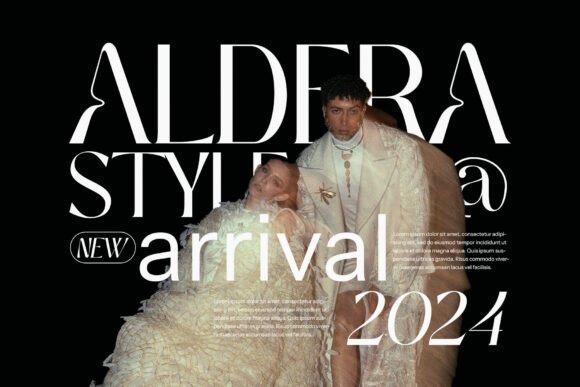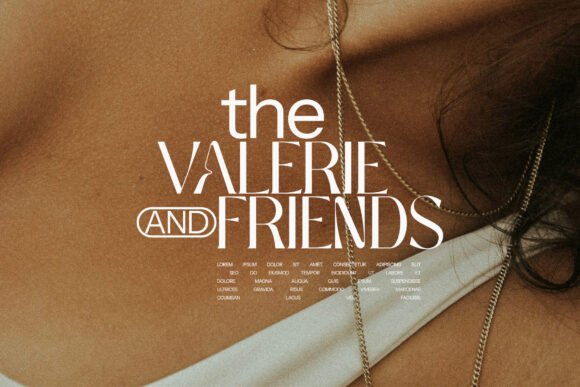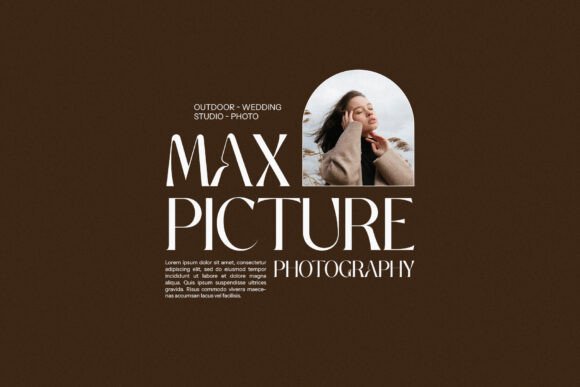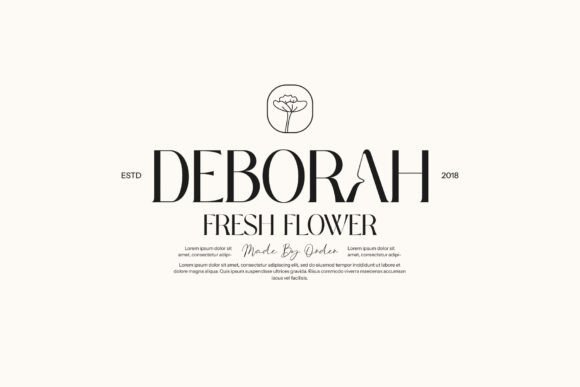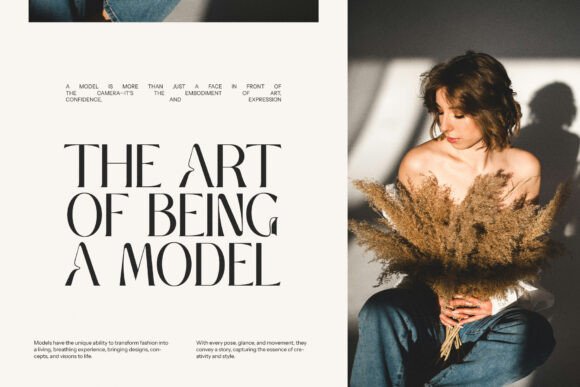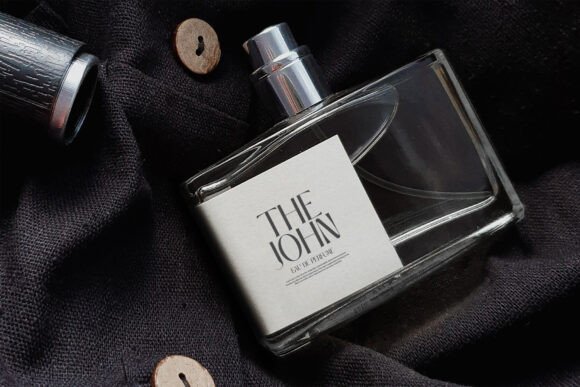
Introduction to Ranges Font
This font offers a touch of elegance and sophistication, making it ideal for branding and logo design.
Crafted with a luxurious, serif style, it brings refinement to any project The font features a variety of distinctive ligatures and alternate options, adding uniqueness to each design.
Key Features of Ranges Font
Why Choose Ranges Font?
Ranges Font offers exceptional quality and versatility, making it a valuable addition to your design toolkit. Whether you’re creating for personal projects or commercial use, Ranges Font delivers professional results.